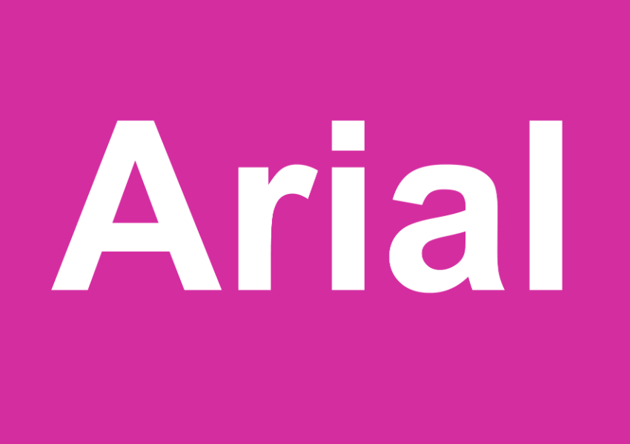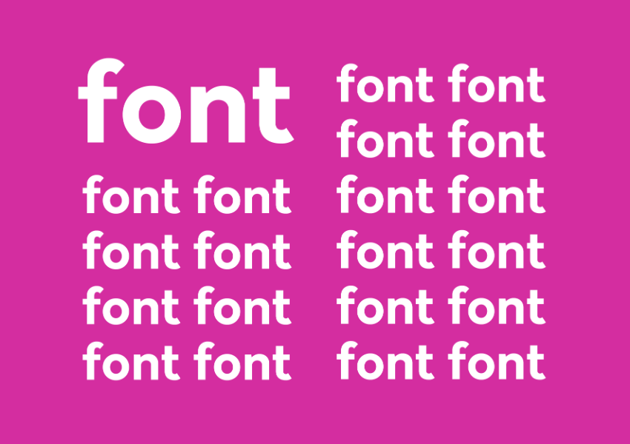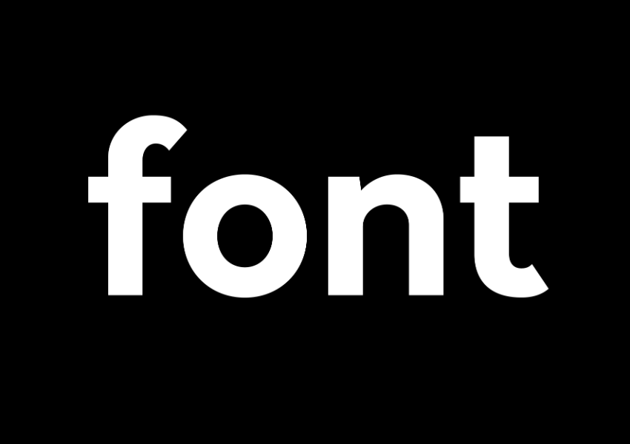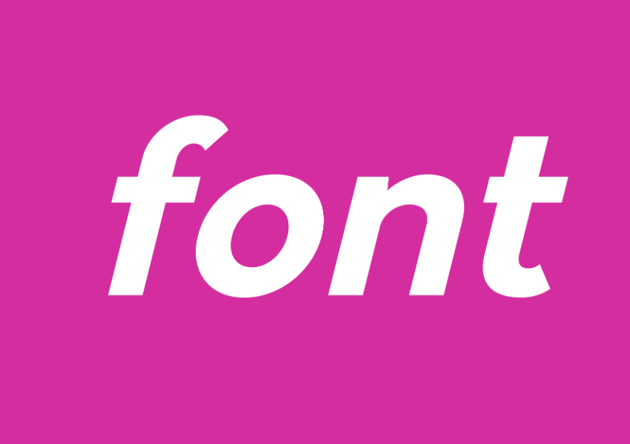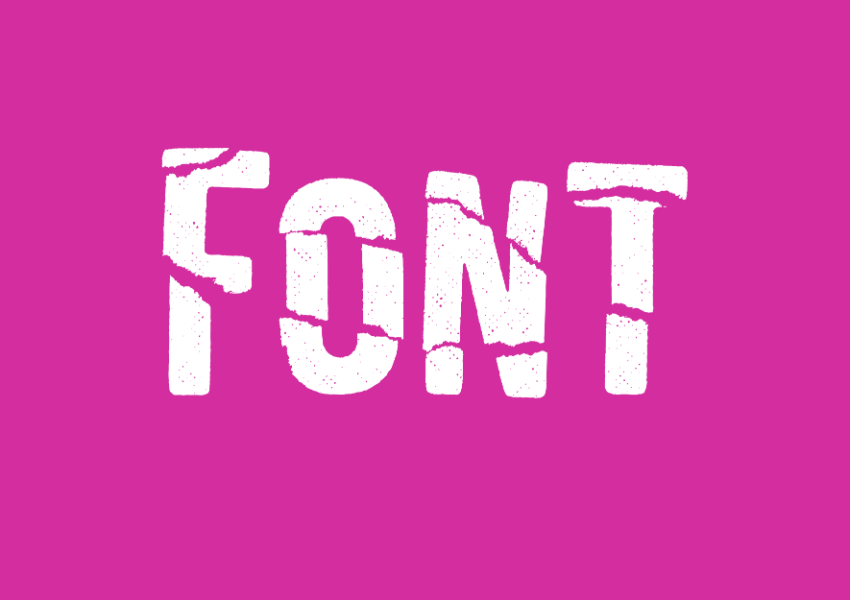
How to Improve the Accessibility of Fonts and Typography in Your Designs
Font types, font design, and typography can have a huge impact on the legibility and visibility of designs for visually impaired viewers, a consideration that print and web designers often overlook.
Choosing the right type of font style to use on your print layout or website to improve design accessibility doesn’t need to be difficult or to compromise the overall aesthetic of your design. Here, you can find out more about how different types of fonts and font design can affect visually impaired viewers, and how you can make instant design accessibility improvements.
How Do Font Choice and Typography Affect Visually Impaired Individuals?
According to the World Health Organization (WHO), at least 2.2 billion people have a vision impairment or blindness, which means that an astonishingly high percentage of 28.5% of the world’s population have some form of vision impairment.
Visual impairment falls broadly into three categories, which have different or overlapping effects for how those affected interact with type-based designs:
Color blindness means that while the shape of text is not distorted, the color of text can be difficult to perceive, and the distinguishment between colors can be more difficult. Color-blind individuals can also be sensitive to color brightness.
Low vision (or low visual acuity) means that an individual can have partial sight in one or both eyes, blurry vision, tunnel vision, central field loss, and/or clouded vision. Designs with small-scale text or click targets can be difficult for affected users to read or see. While some individuals use specialist built-in browser zoom, many non-technical users are not aware of or don’t know how to use these extensions.
Blindness is the substantial loss of vision in both of the eyes. For printed and physical text, blind individuals have relied on Braille text, while blind internet users often turn to screen reader technology, which turns on-screen content into speech or shows it on a Braille display. The most popular screen reader software for Windows devices is JAWS (Job Access With Speech), while Apple users commonly use VoiceOver.
Other specific symptoms of visual impairment which can affect how individuals interact with text include:
- Visual snow, glare, ghosting, and cataracts—symptoms which can affect the clarity, position, and number of occurrences (double vision) of text.
- Nystagmus, which is characterized by rapid, involuntary, oscillatory movement of the eyes, can give the impression that text is jumping around or disappearing.
- An obstructed visual field, which includes floaters, an obstruction to one side (retinal detachment or hemianopia), obstructed central vision (glaucoma), spotty vision (diabetic retinopathy), or obstructed peripheral vision (retinitis pigmentosa or macular degeneration), can limit the individual’s field of view, meaning that some parts of the text in a design might not be visible.
An Example of Accessibility and Inaccessibility in Graphic Design in Practice
Let’s look at an example of how the choice of fonts and formatting of typography could affect the accessibility of a site for visually impaired individuals.
The New Yorker has been praised by type aficionados for its elegant use of typography. On the magazine’s website, the quirky and custom-designed serif font, NY Irvin, is balanced with geometric sans serif Neutraface and traditional serif Times New Roman.
As a publication with an intelligent reputation, The New Yorker has a text-heavy website, featuring a masthead and central headline teaser, alongside a number of other article titles around the periphery.
As stylish and aesthetically balanced as it might be, the typography presents a number of issues which commonly limit the accessibility of such sites to visually impaired users.
The New Yorker website performs poorly on three occasions, when faced with users with symptoms of low acuity (blur), ghosting, and a blocked visual field. You can use a vision simulator online that allows web designers to assess the accessibility of sites.
An individual with low acuity would struggle to read the text set at a smaller scale, such as the article teasers in the left and right columns, as well as body text in the headline area.
If an individual experiences ghosting (also known as double vision or diplopia), the website text becomes nearly completely illegible, meaning the accessibility in design isn't great. The ornate style of the serif font is no doubt an exacerbating factor in this, as the shape of individual letters is not instantly perceptible when overlapping. Again, not one of the best fonts for the visually impaired.